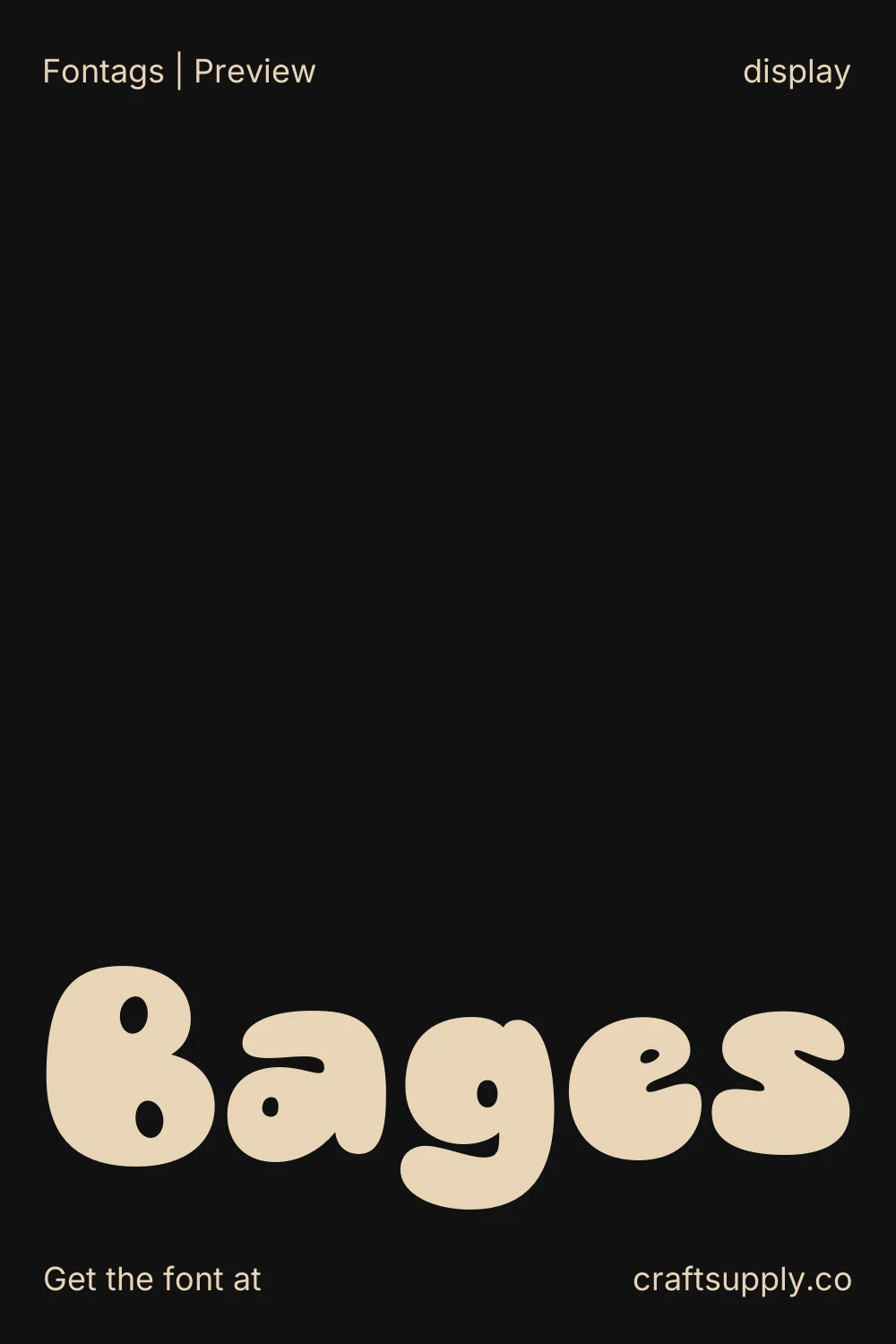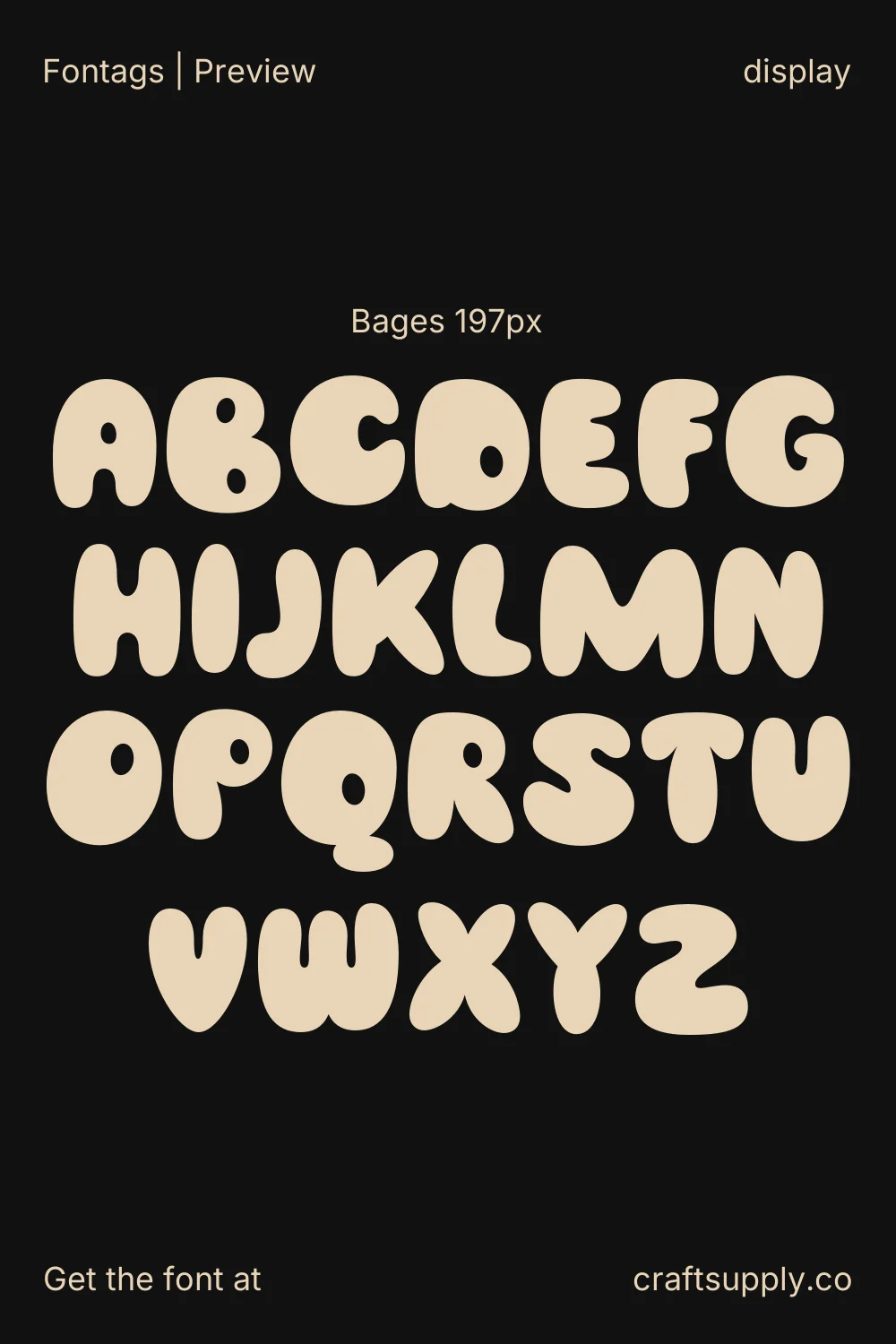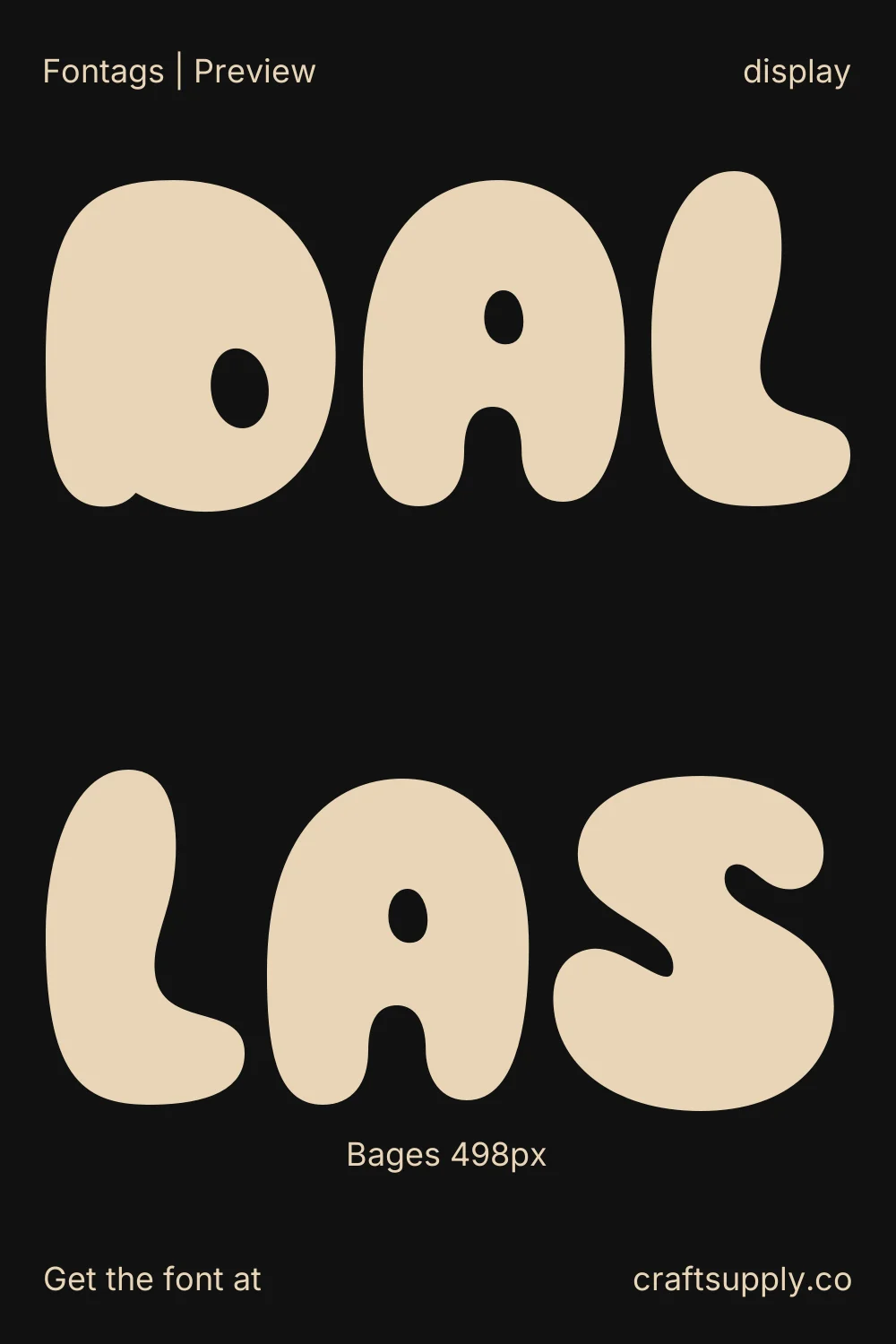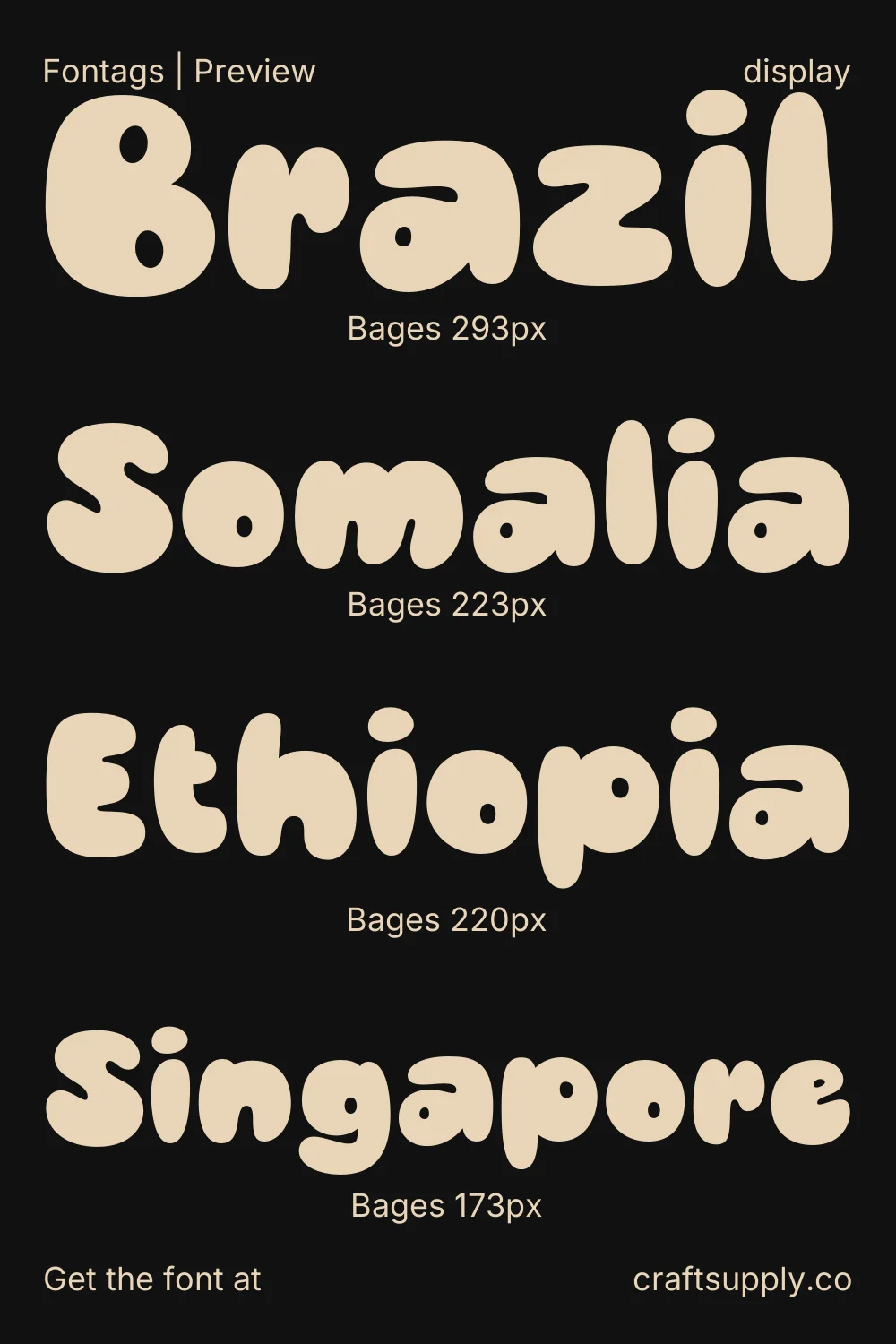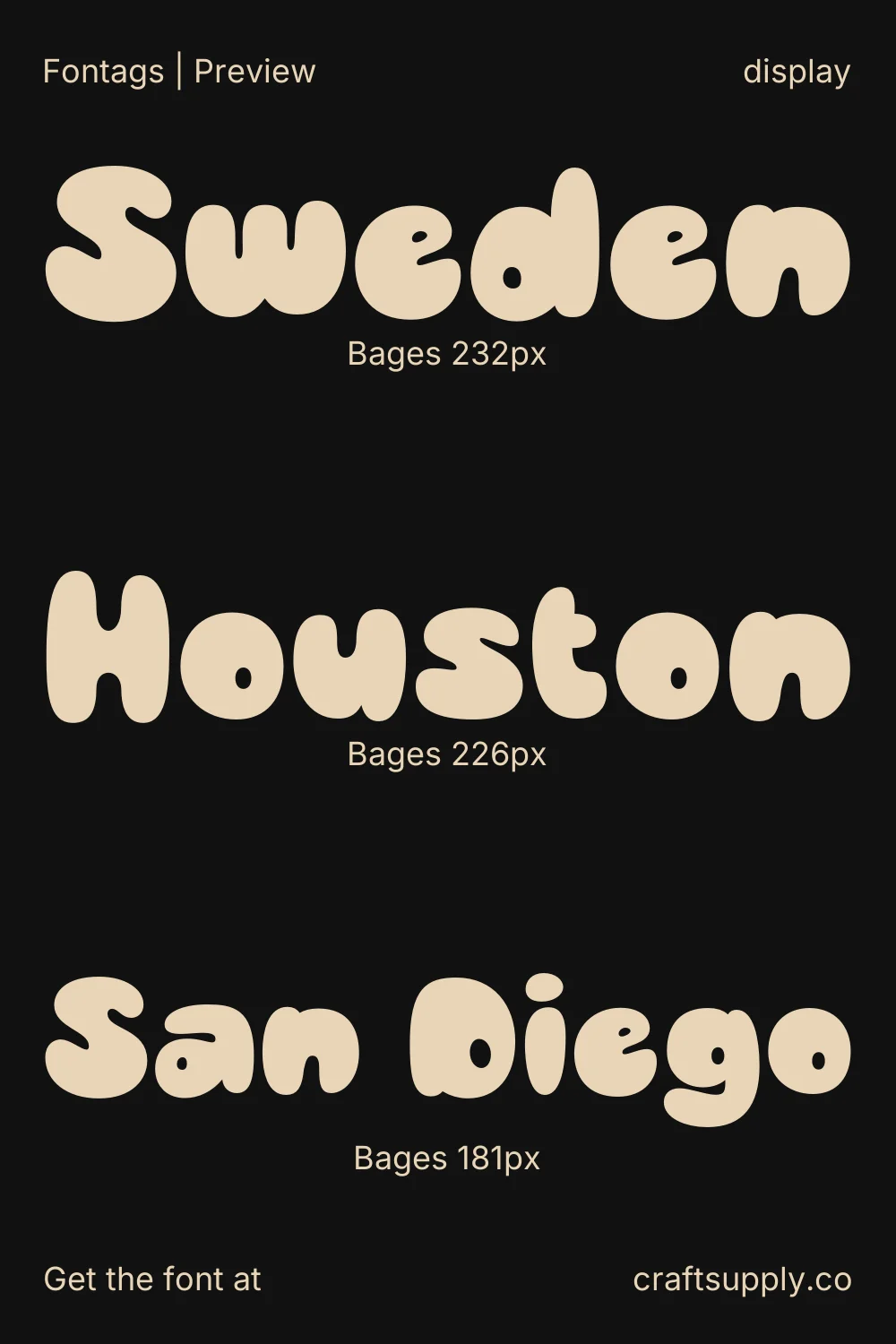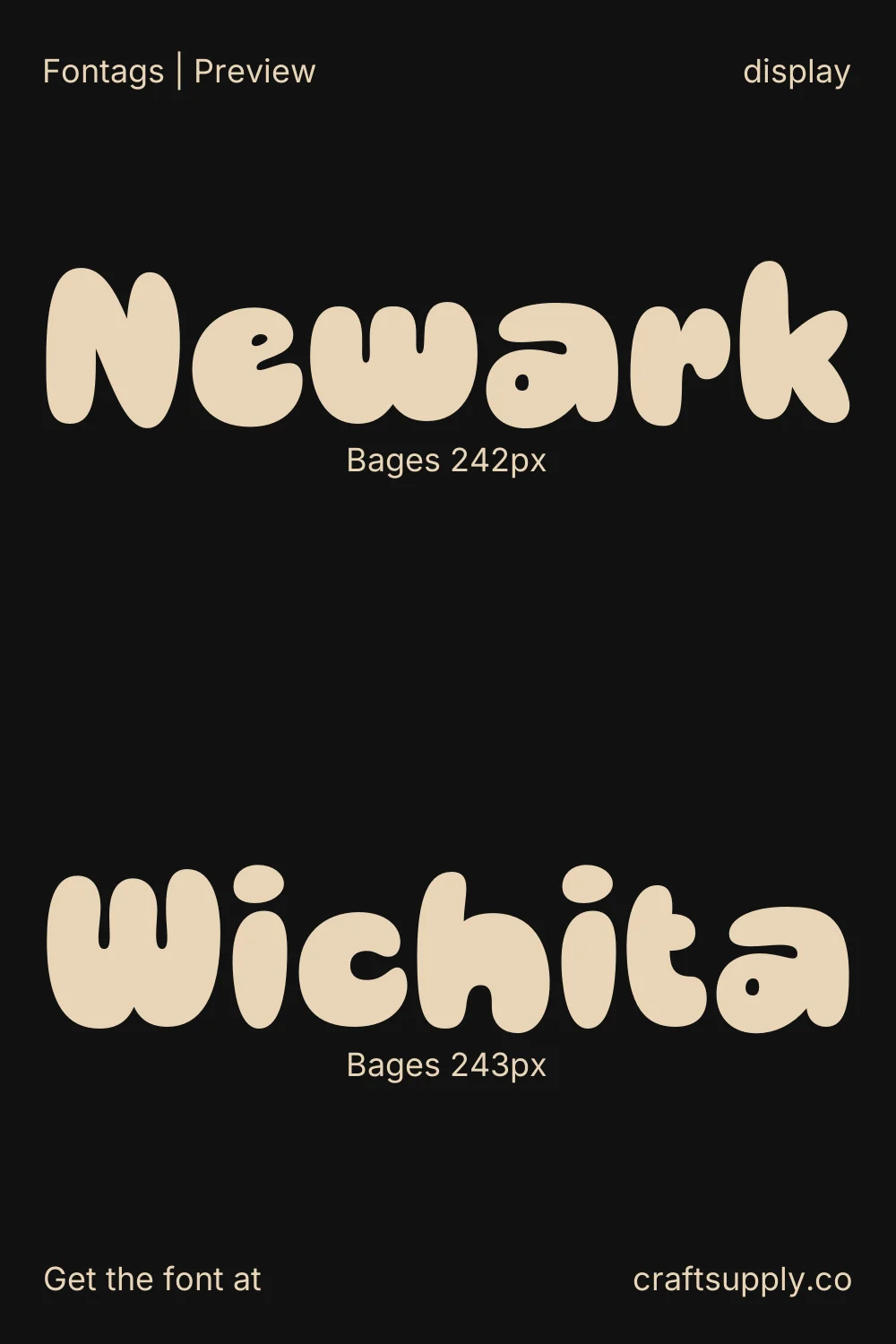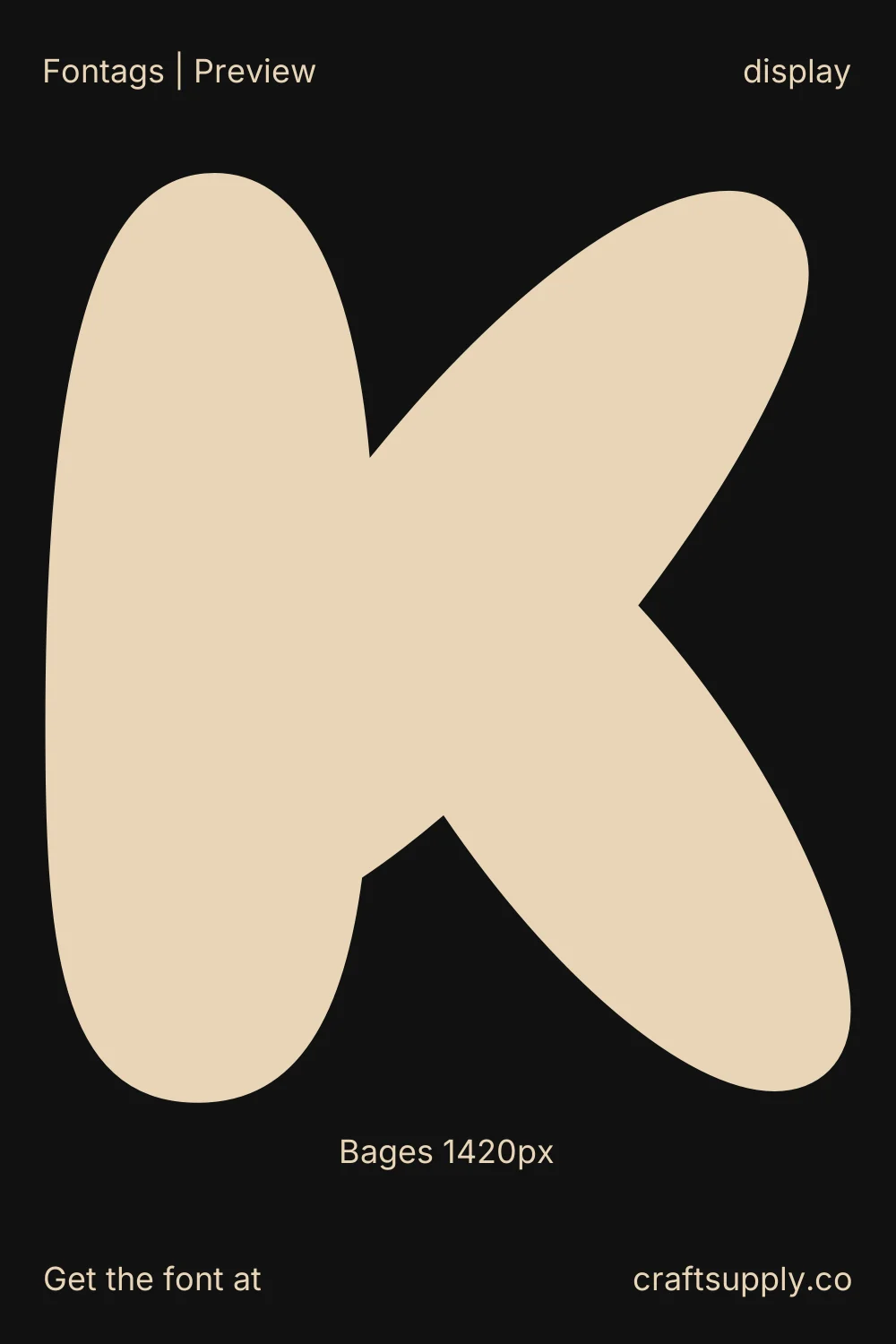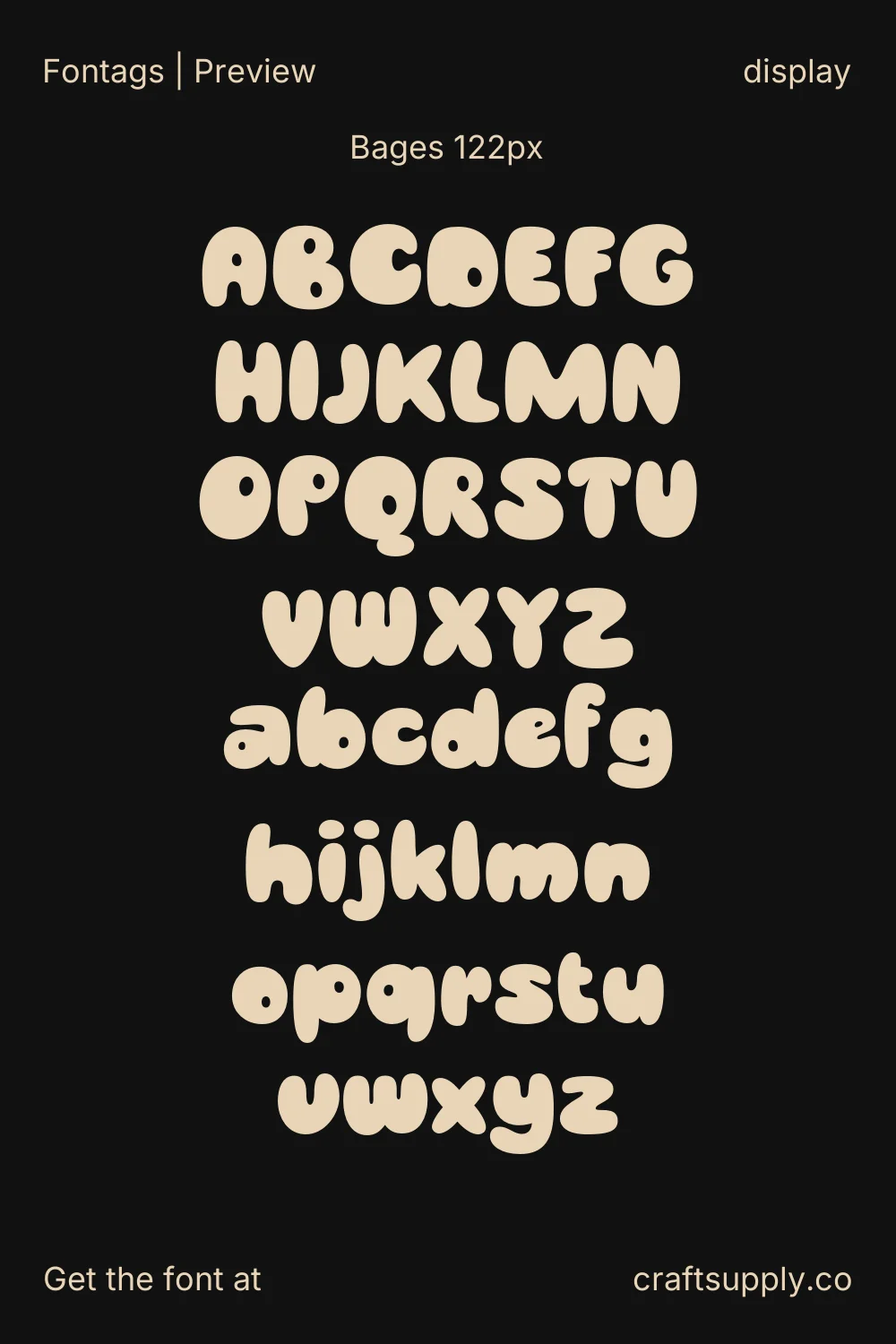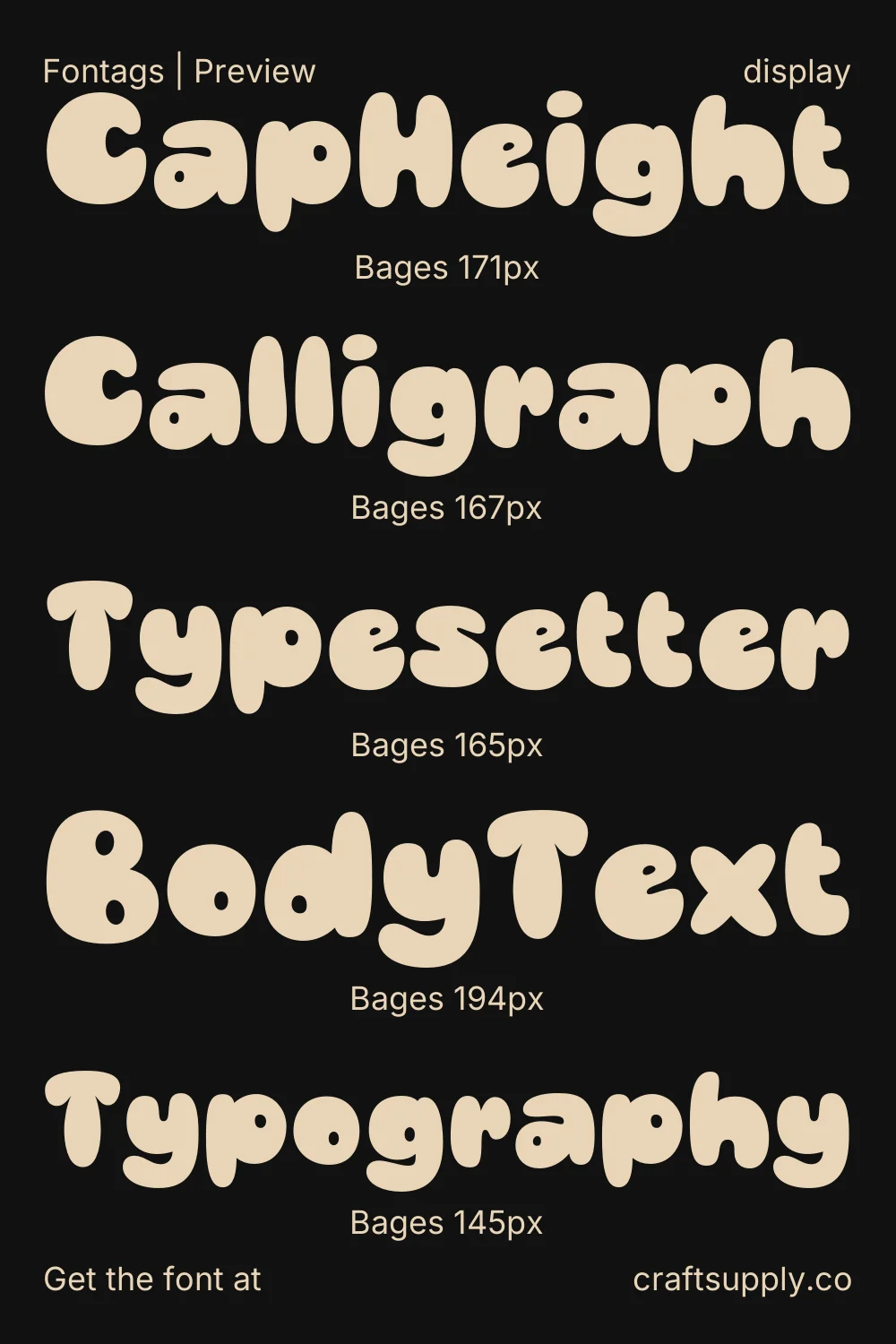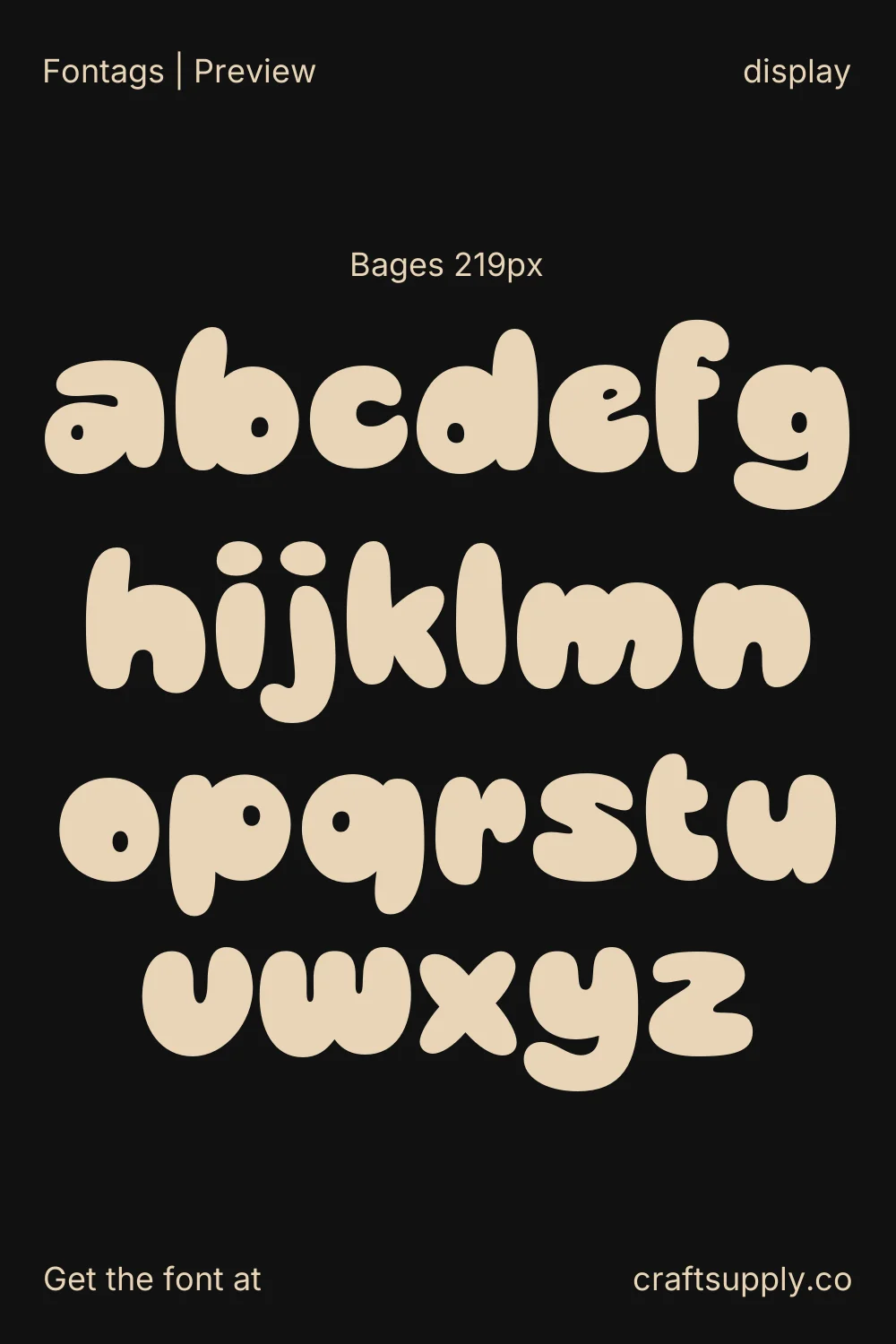
Bages
Bages is a playful bubble display font with dynamic, cheerful character forms inspired by bubbles and balloons. Its rounded, smooth edges create a buoyant, floating effect, making it ideal for party invitations, children's books, and marketing materials that need a fun and joyful touch.